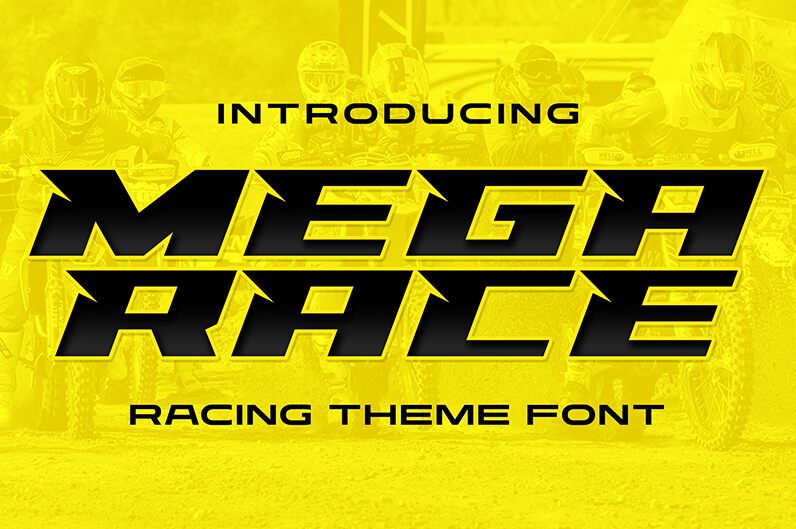
Racing Mega Race
Racing Mega Race font by Multype Studio is a futuristic and bold display free font that instantly catches attention. Featuring expanded letters with geometric shapes, this high-tech typeface also carries sharp angles, strong strokes, and italicized characters that all together remind us of racing tracks and the speed that accompanies them.
The modernity held within its characters makes it highly suitable for advertising projects like banners, signages, posters, event announcements display titles for websites. Other possible uses include logos for car shows or even magazines directed toward technology lovers. Use it in packaging design and video games too!